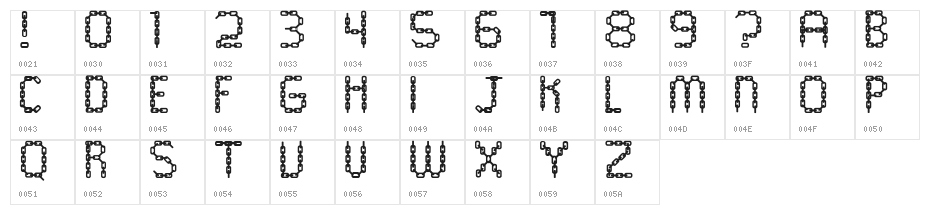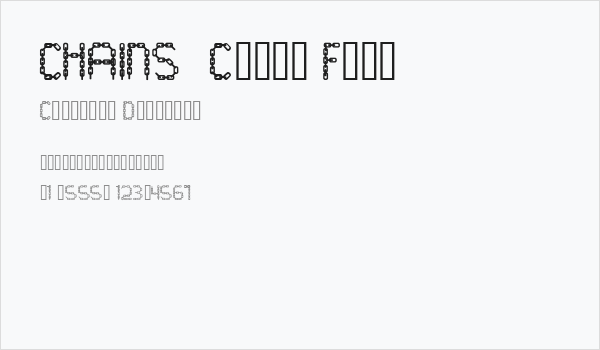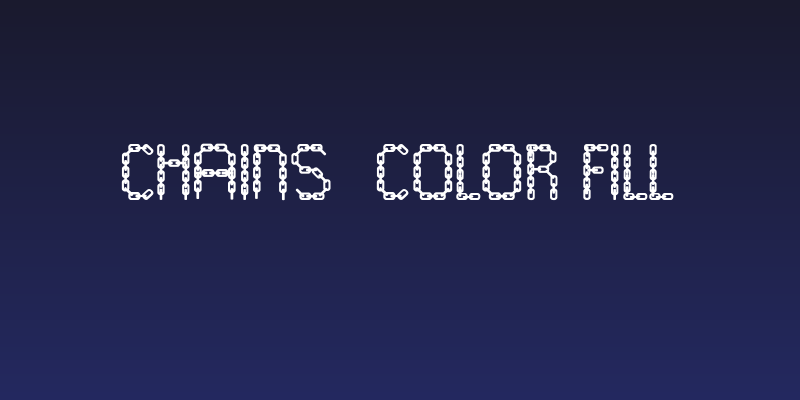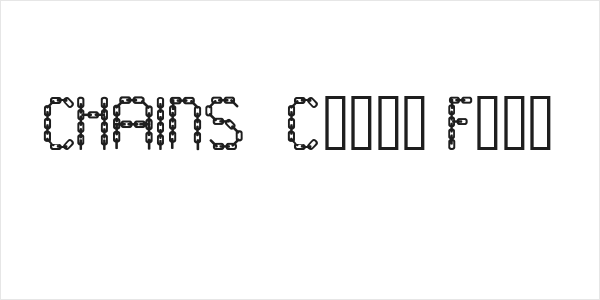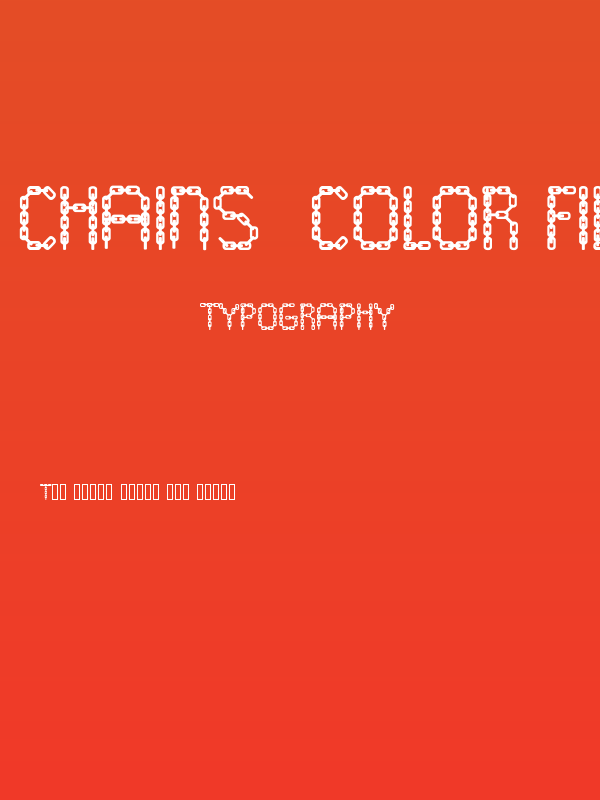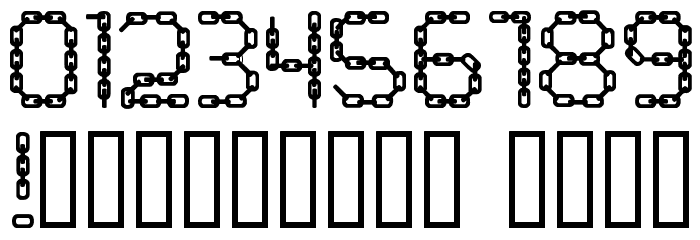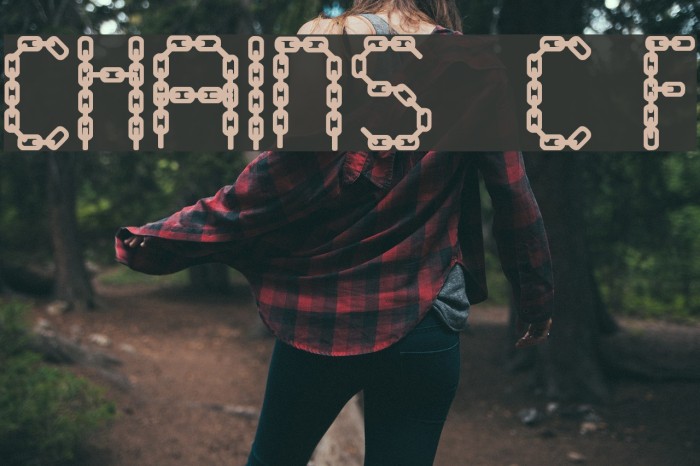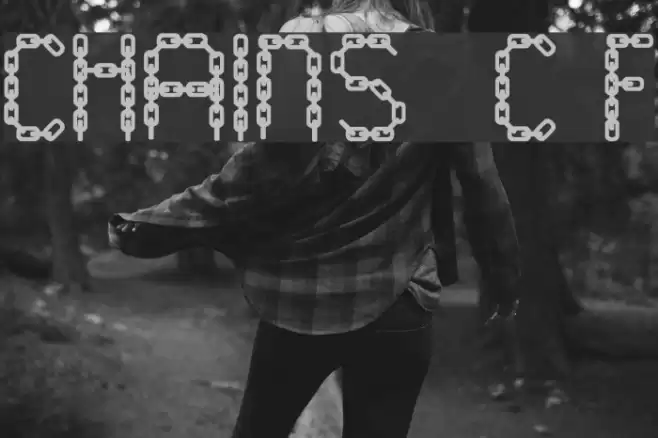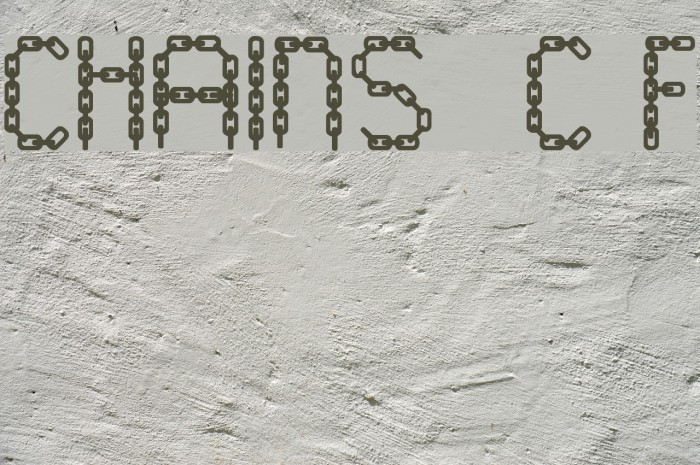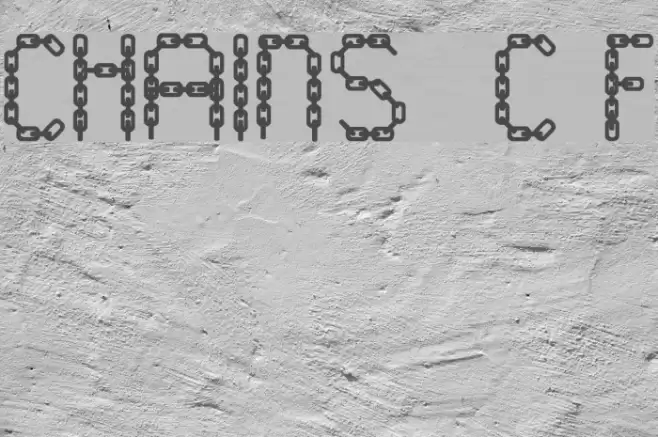
CHAINS Color Fill Font
CHAINS Color Fill Description
This font features a unique design where each character is composed of interconnected chain links, creating a bold and industrial aesthetic. The uppercase letters, numbers, and special characters all maintain this chain motif, providing a cohesive and striking visual style. The font's design is highly decorative, making it ideal for projects that require a strong, thematic presence. The characters are evenly spaced, ensuring readability while maintaining the intricate chain detail. This font is perfect for creative projects that aim to convey strength, unity, or an edgy, modern vibe.
| Overall Style | Industrial, Modern, Decorative |
| Use Case | Logos, Posters, Album covers |
| Proposed Projects | Ideal for posters, logos, album covers, or any design needing a strong, thematic presence. |